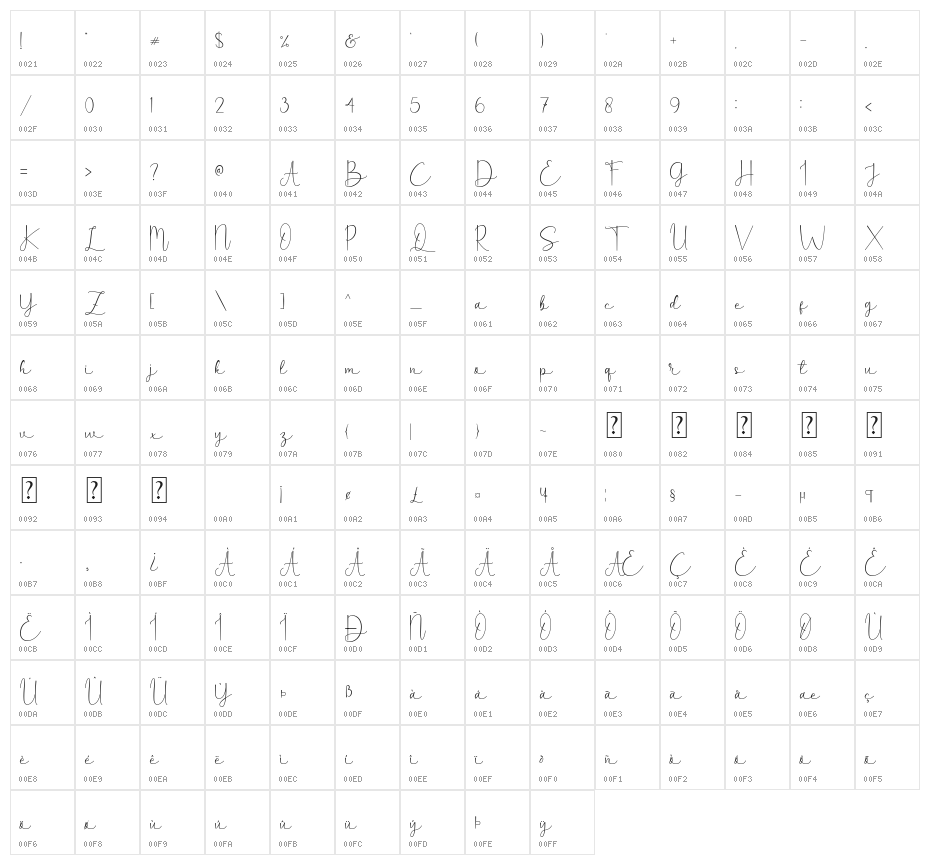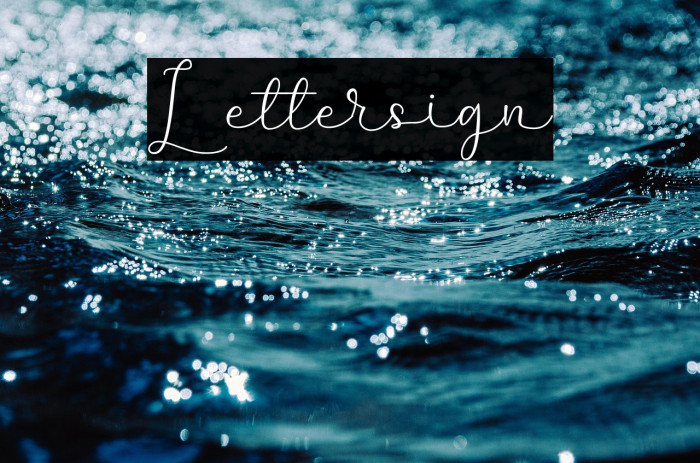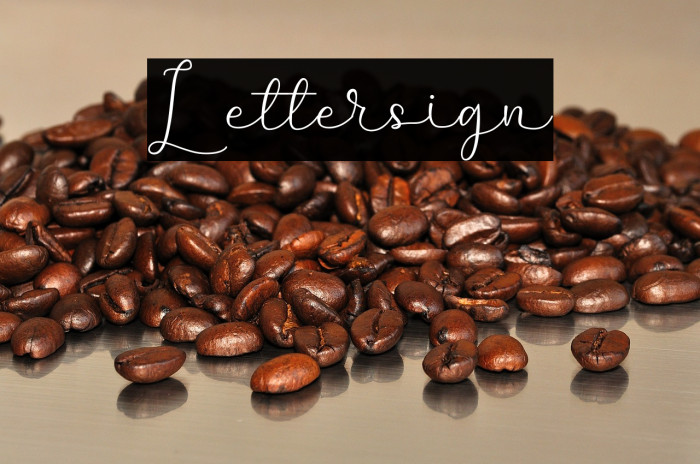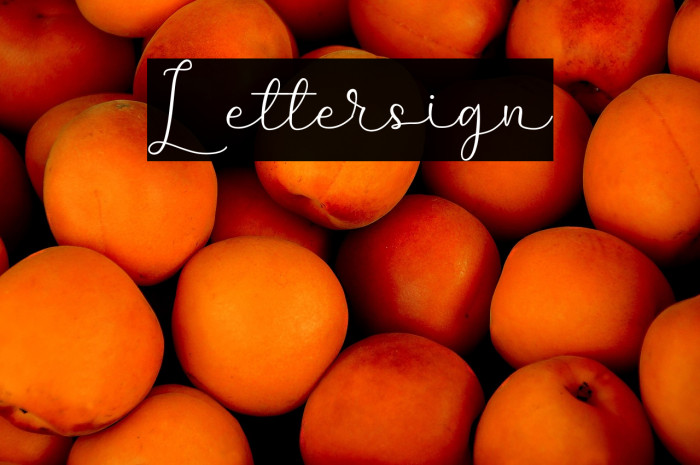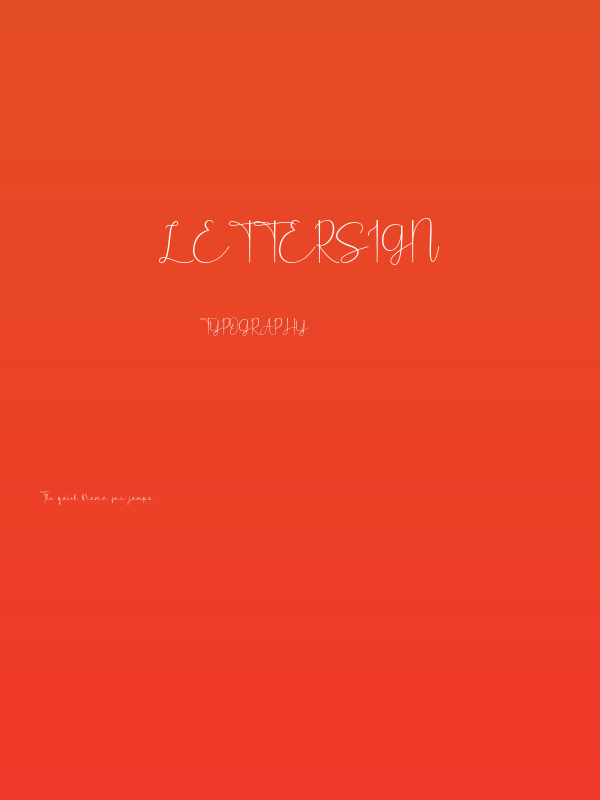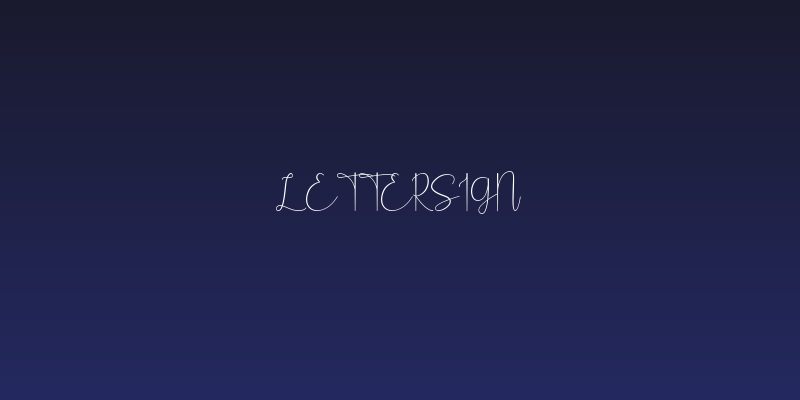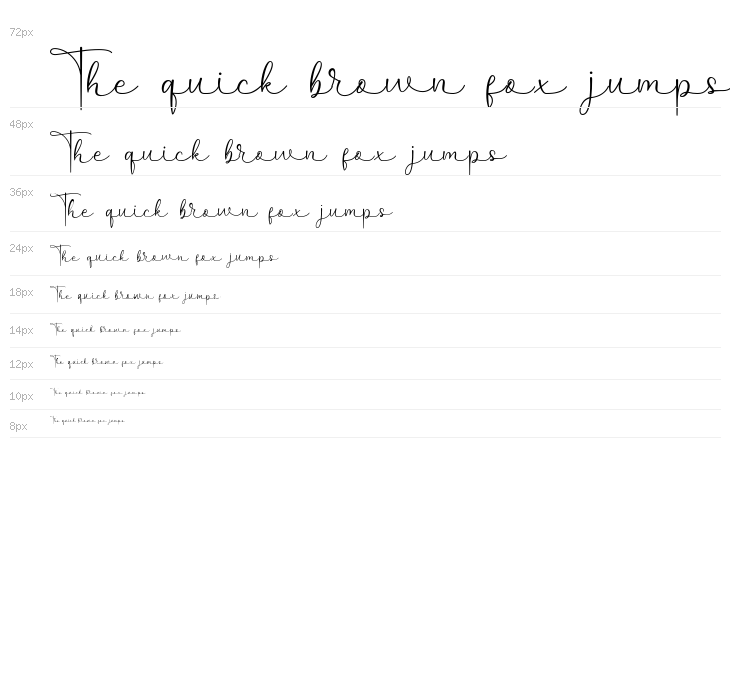
Lettersign Font
Lettersign Description
This font features a delicate and elegant handwritten style, characterized by its thin, flowing lines and graceful curves. The uppercase letters exhibit a whimsical charm, with playful loops and swirls that add a touch of sophistication. The lowercase letters maintain a consistent fluidity, enhancing the font's overall cohesiveness. Numbers and special characters are crafted with the same attention to detail, ensuring versatility across various applications. The font's airy and light appearance makes it suitable for projects that require a personal and artistic touch.
| Overall Style | Elegant, Artistic |
| Use Case | Logos, Invitations, Artistic designs |
| Proposed Projects | Ideal for wedding invitations, greeting cards, personal branding, and artistic projects. |